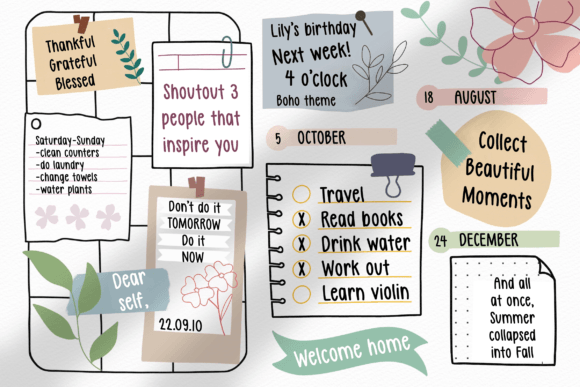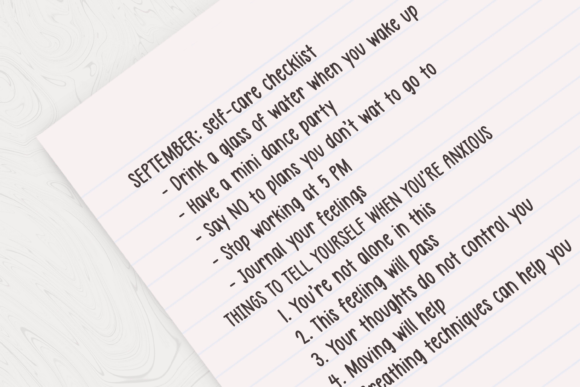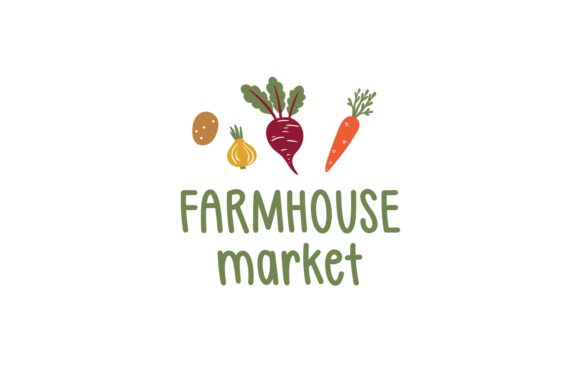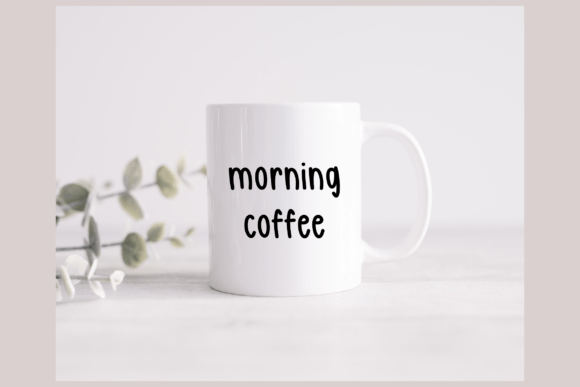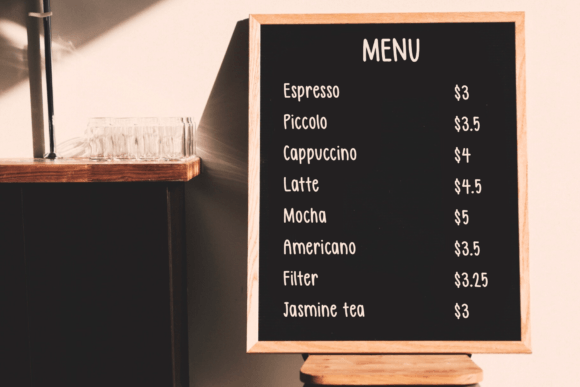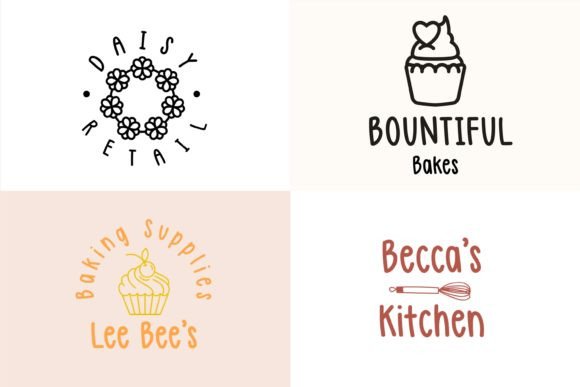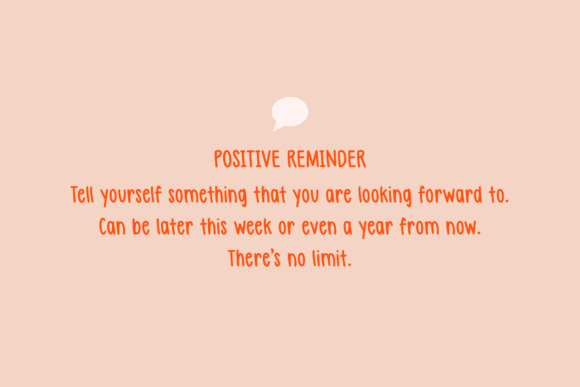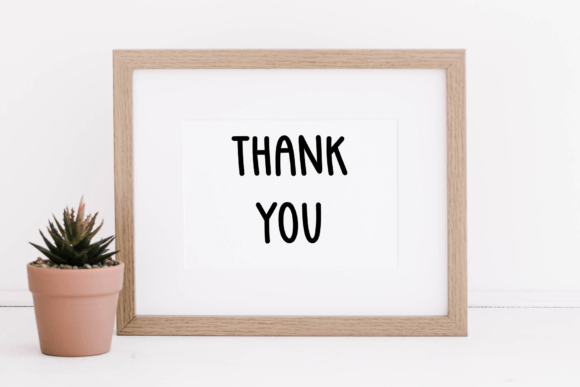
Keep It Simple Font
About Keep It Simple Font
**Keep It Simple: A Charming and Fun Handwritten Font for All Occasions**
*Keep It Simple* is a delightful handwritten font that brings a touch of charm and playfulness to your design projects. Its whimsical style and versatility make it a valuable addition to your font library, as it has the power to enhance a wide range of creations. Whether you’re working on invitations, greeting cards, logos, posters, or any other design, *Keep It Simple* will effortlessly elevate your work.
One of the key features of *Keep It Simple* is its inherent cuteness and simplicity. The font’s handwritten appearance adds a personal touch to your projects, making them feel warm and inviting. It’s an excellent choice when you want to convey a sense of friendliness and approachability.
Invitations come to life with *Keep It Simple*. Use this font to craft charming and visually appealing invitation designs for events like birthdays, baby showers, weddings, and more. Its playful style sets the right tone for a joyous celebration.
Greeting cards take on a whole new level of personality when you incorporate *Keep It Simple*. Whether you’re designing cards for holidays, special occasions, or just to say hello, this font allows you to create heartfelt and eye-catching messages that resonate with the recipient.
Logos designed with *Keep It Simple* have a unique and memorable quality. If your brand aims to convey a friendly and uncomplicated image, this font can help you achieve just that. Its simplicity makes it easy to recognize and remember.
Posters benefit from the lively and fun character of *Keep It Simple*. Whether you’re promoting an event, a local business, or a cause, this font adds a touch of whimsy that draws attention and engages viewers.
Social media graphics designed with *Keep It Simple* feel approachable and relatable. Use it to create engaging and shareable content that resonates with your audience. Its playful style can help your posts stand out in crowded feeds.
Product packaging takes on a more inviting and friendly look with *Keep It Simple*. This font is perfect for products targeting consumers who appreciate simplicity, authenticity, and a touch of whimsy.
Beyond these applications, *Keep It Simple* offers endless creative possibilities. Its versatility makes it suitable for children’s books, DIY projects, craft labels, and much more. Its potential to elevate any creation lies in its simplicity and charm.
In summary, *Keep It Simple* is a cute and fun handwritten font that adds charm and playfulness to your design projects. Its versatility and ability to convey friendliness make it a valuable asset for invitations, greeting cards, logos, posters, and various other creations. Embrace the charm of *Keep It Simple* and watch your designs shine with a touch of whimsy.